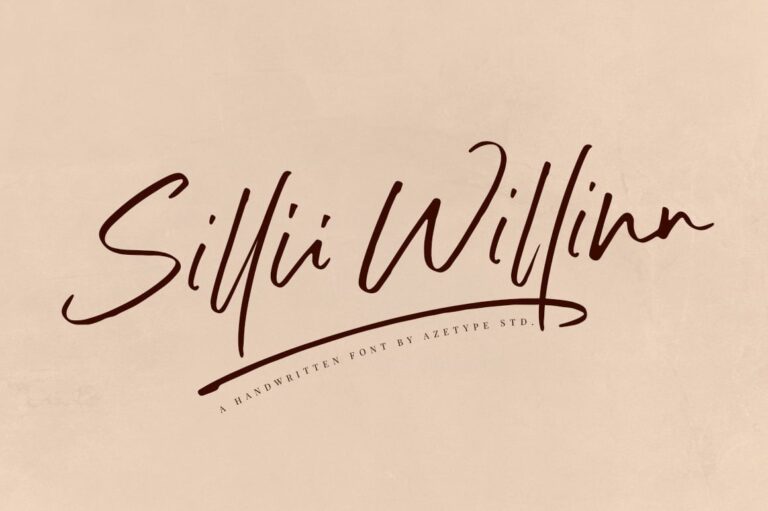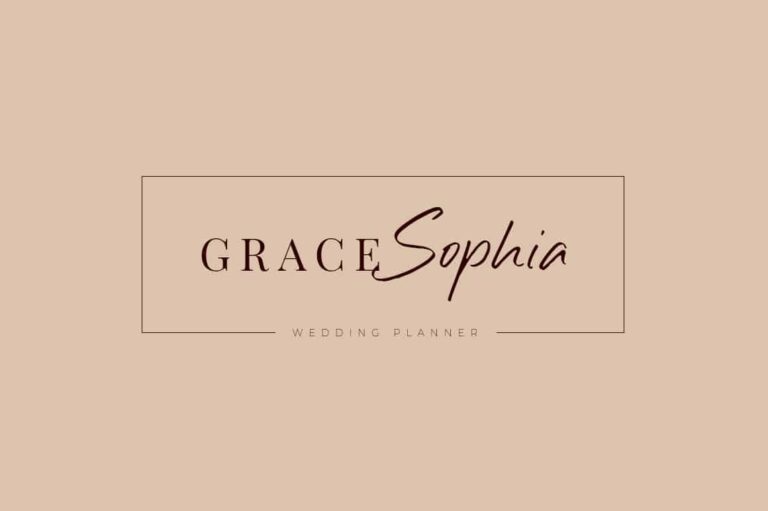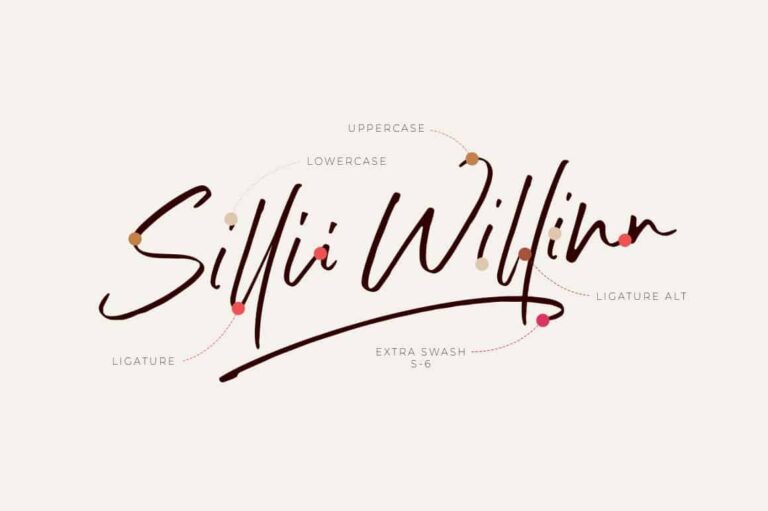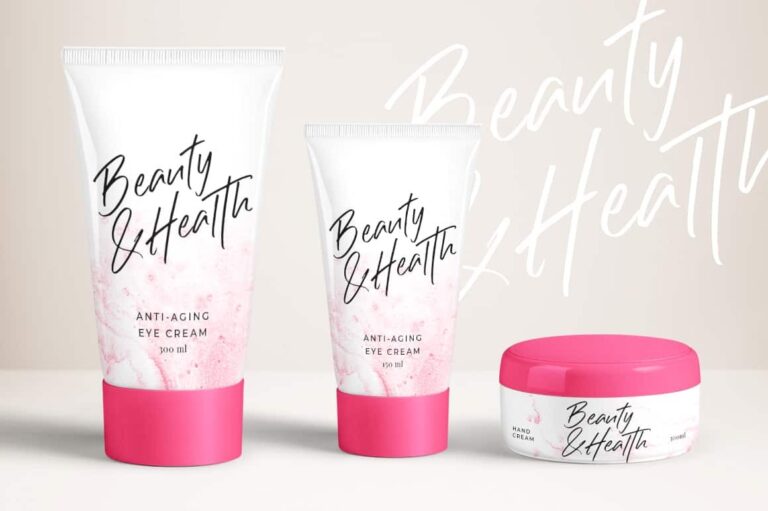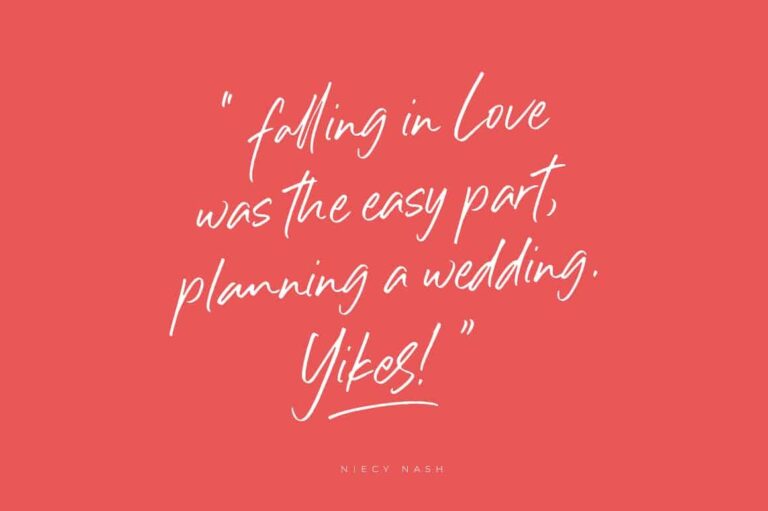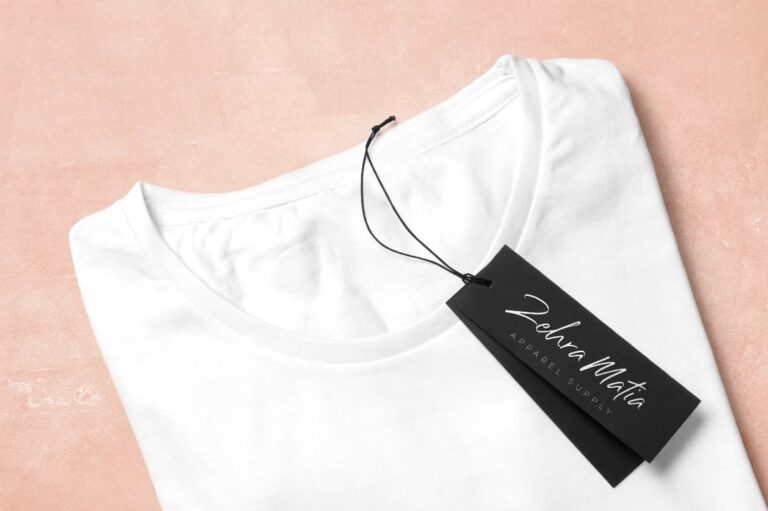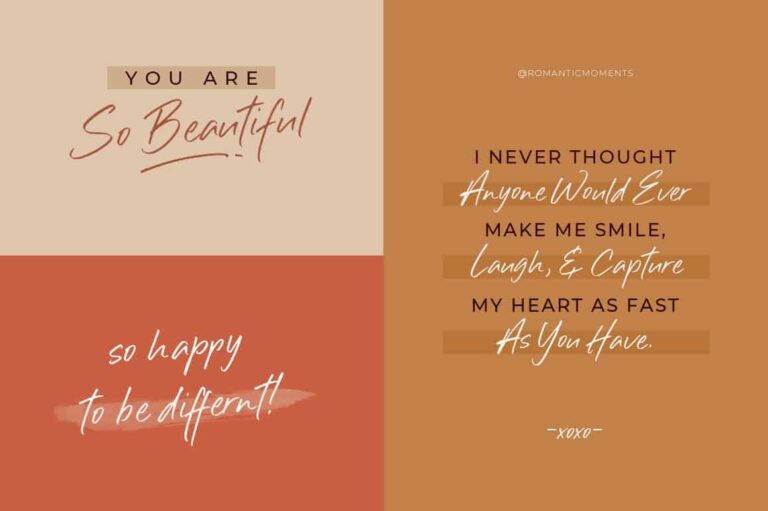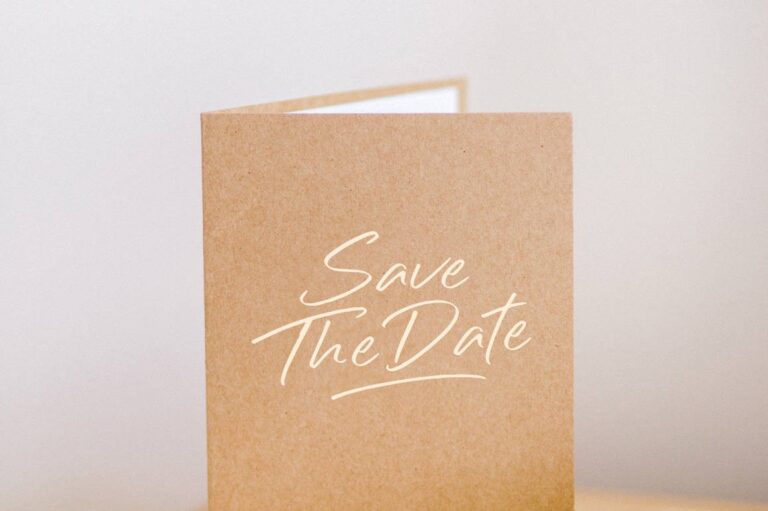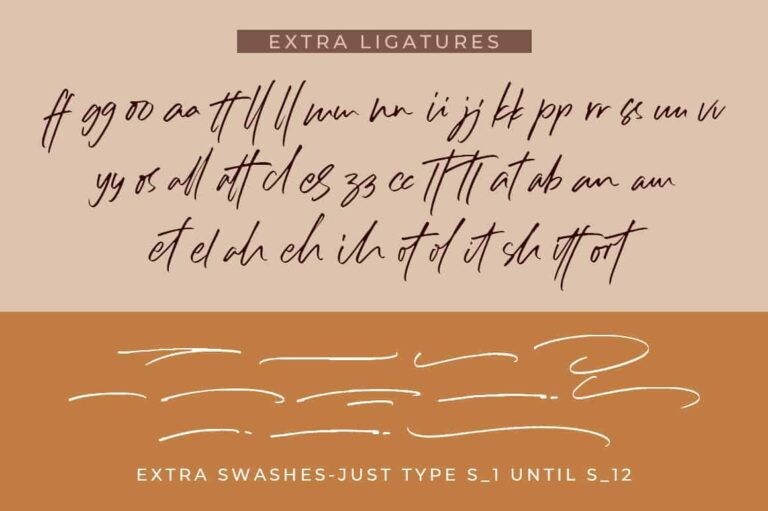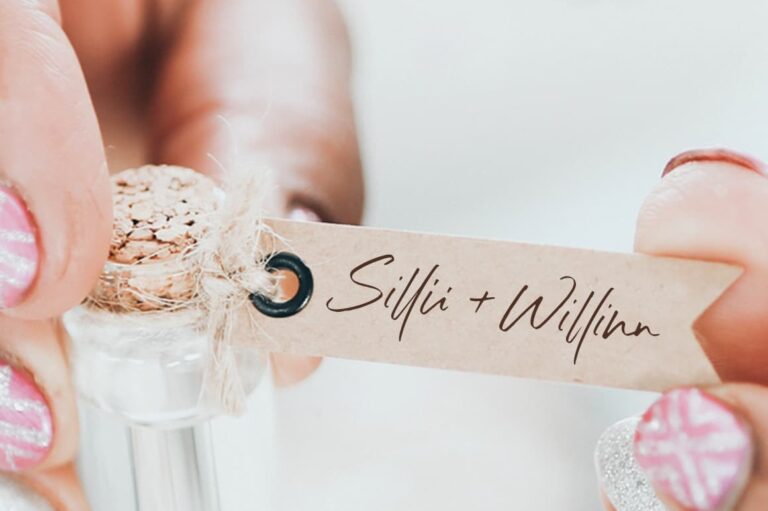
- Sillii Willinn
A versatile handwritten font with the original hand scratches.
So, Sillii Willinn can’t wait to give its touch to all your design projects such as quotes, wedding invitation, personal branding, logotype, promotional materials, overlay on the picture, social media promotion, product packaging, etc